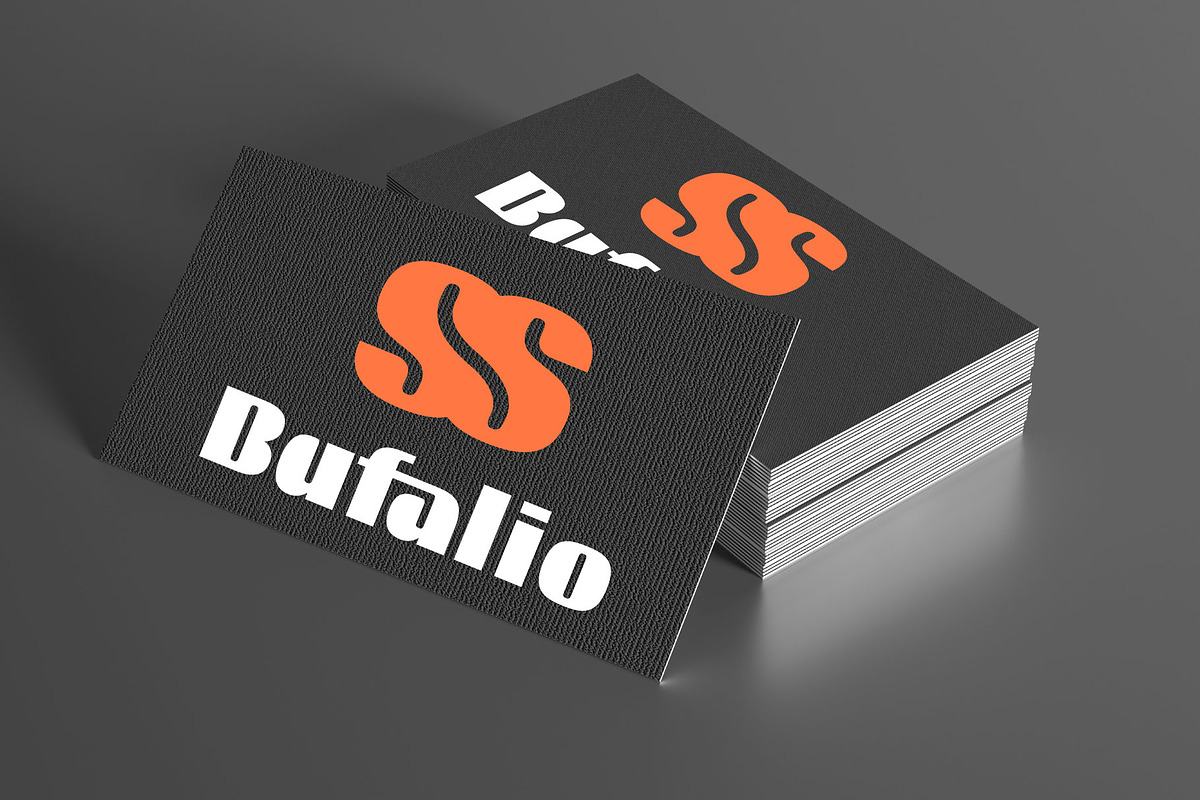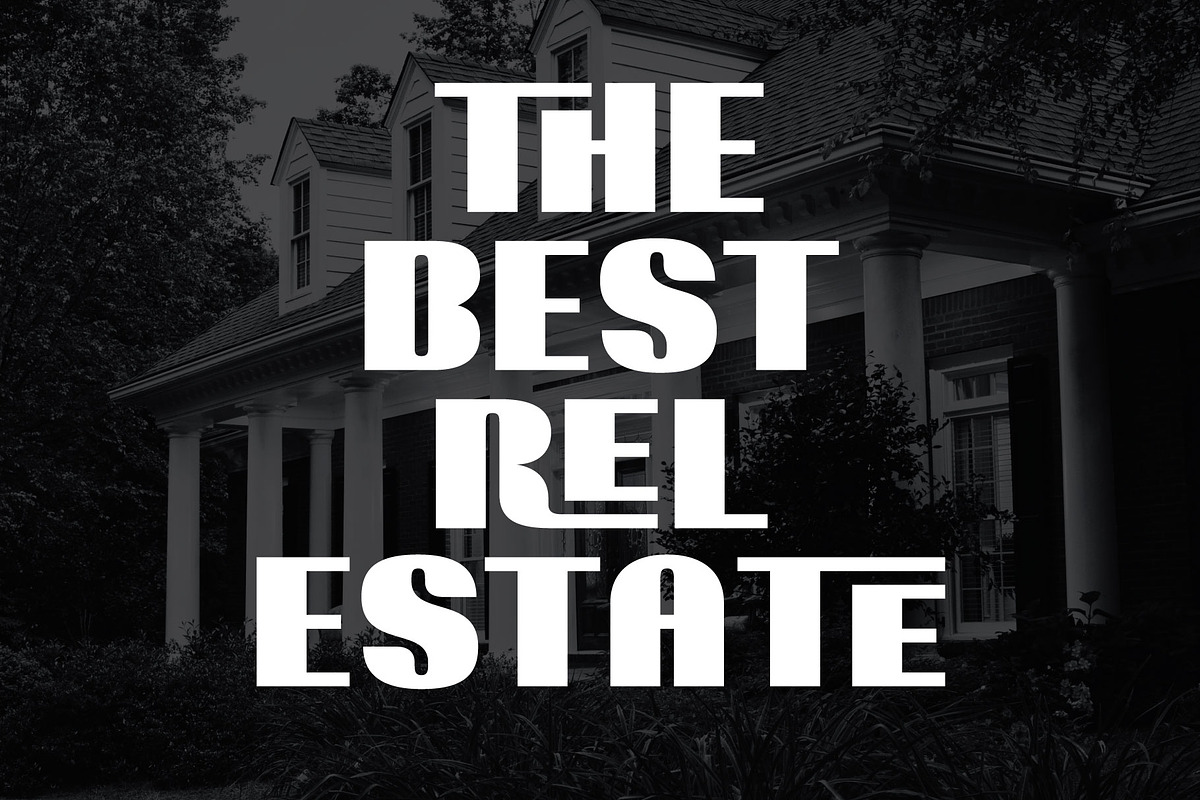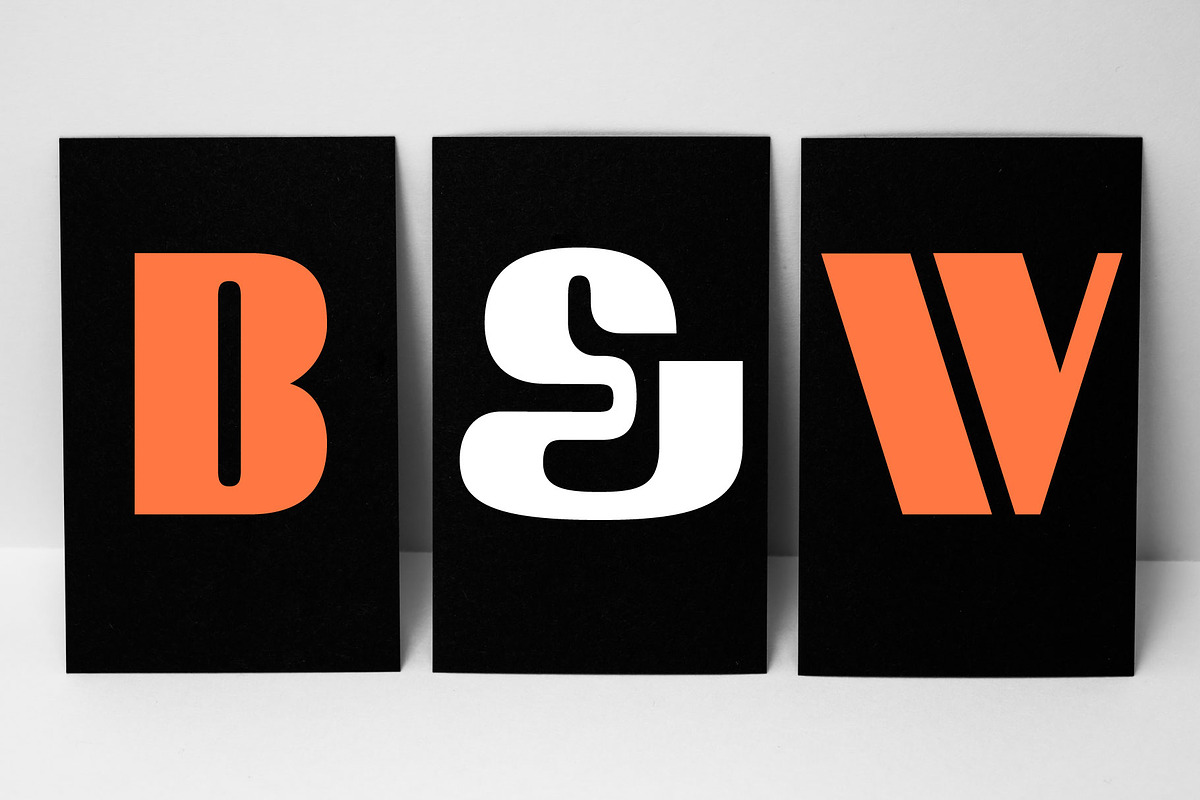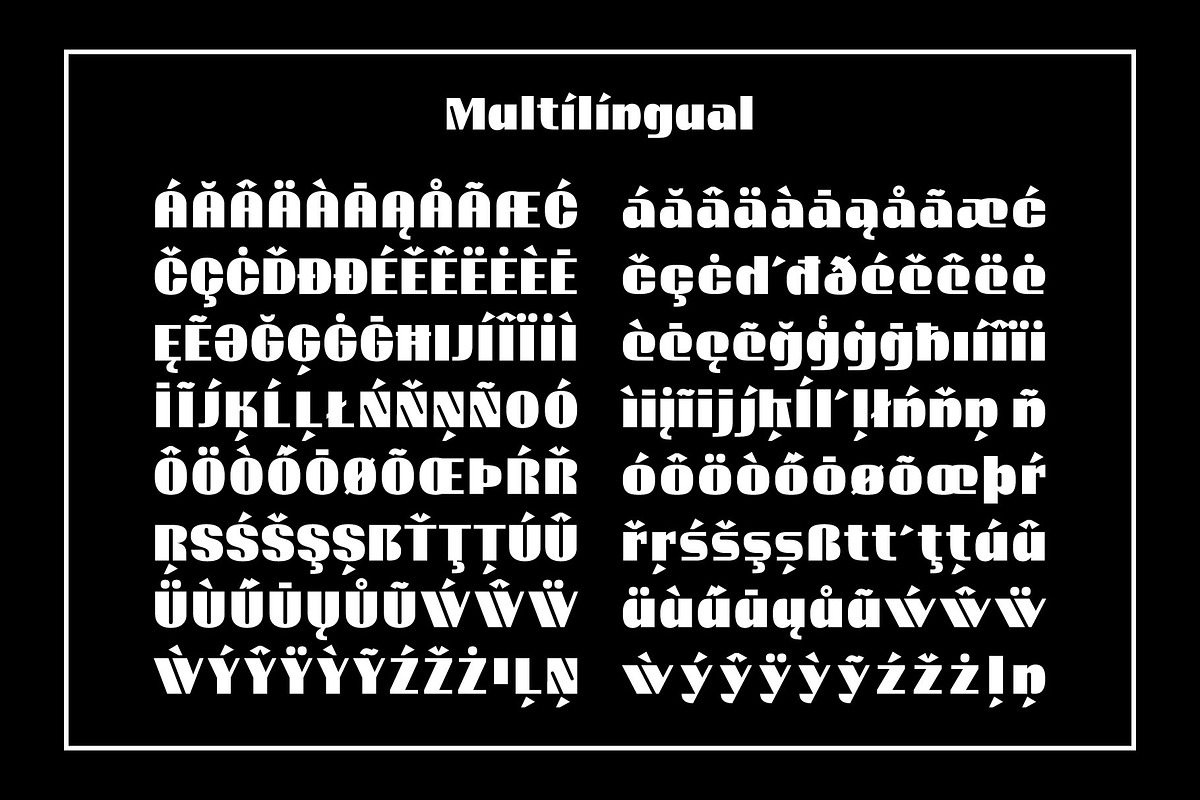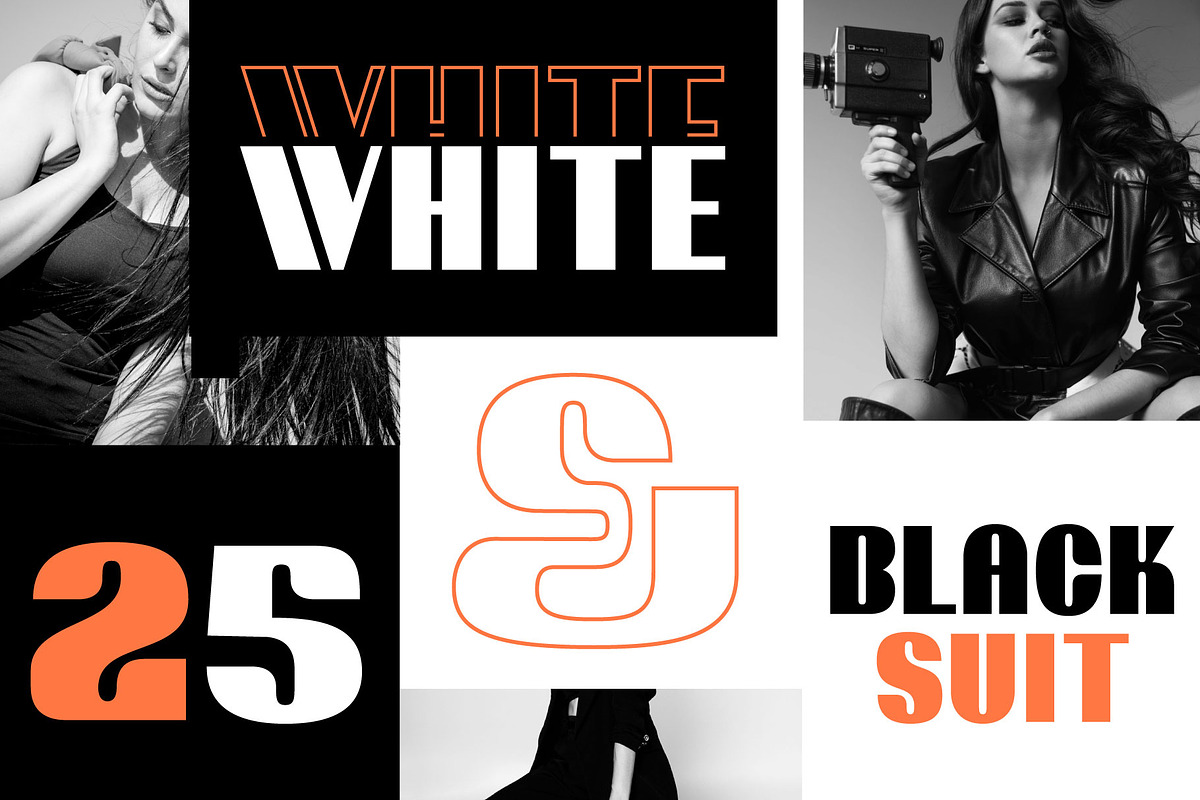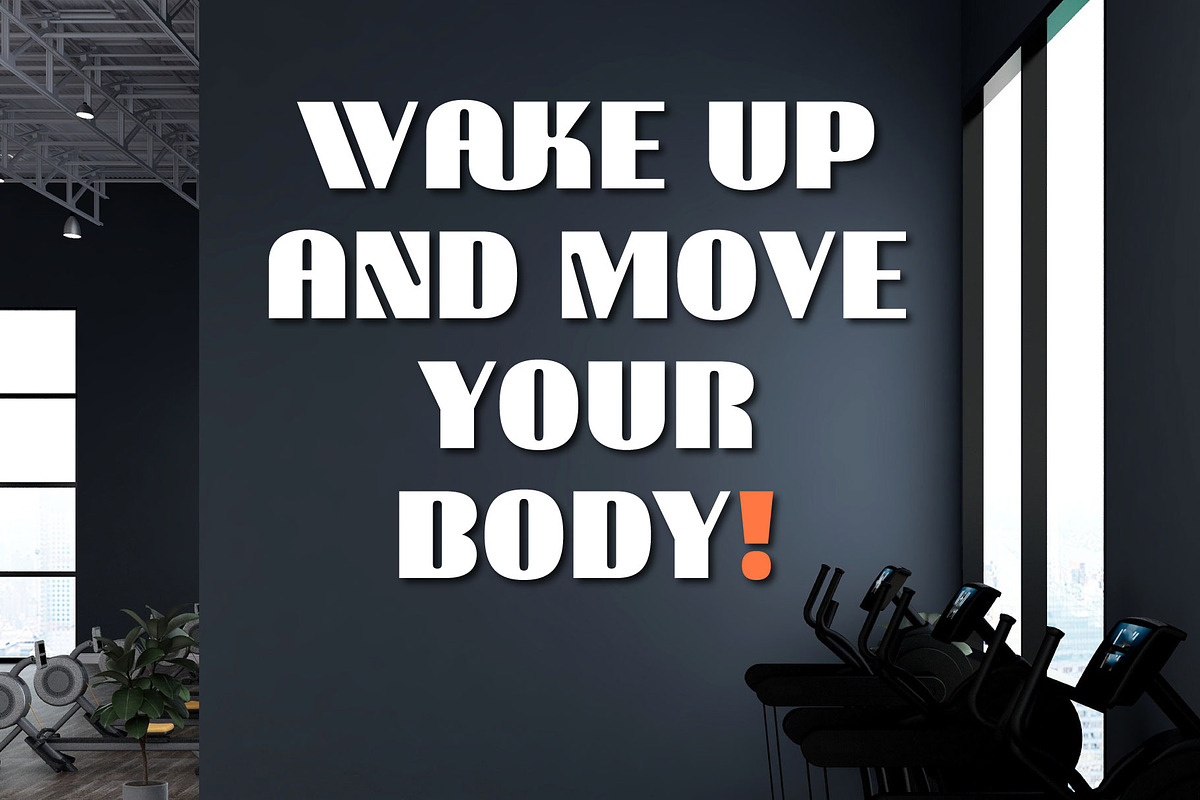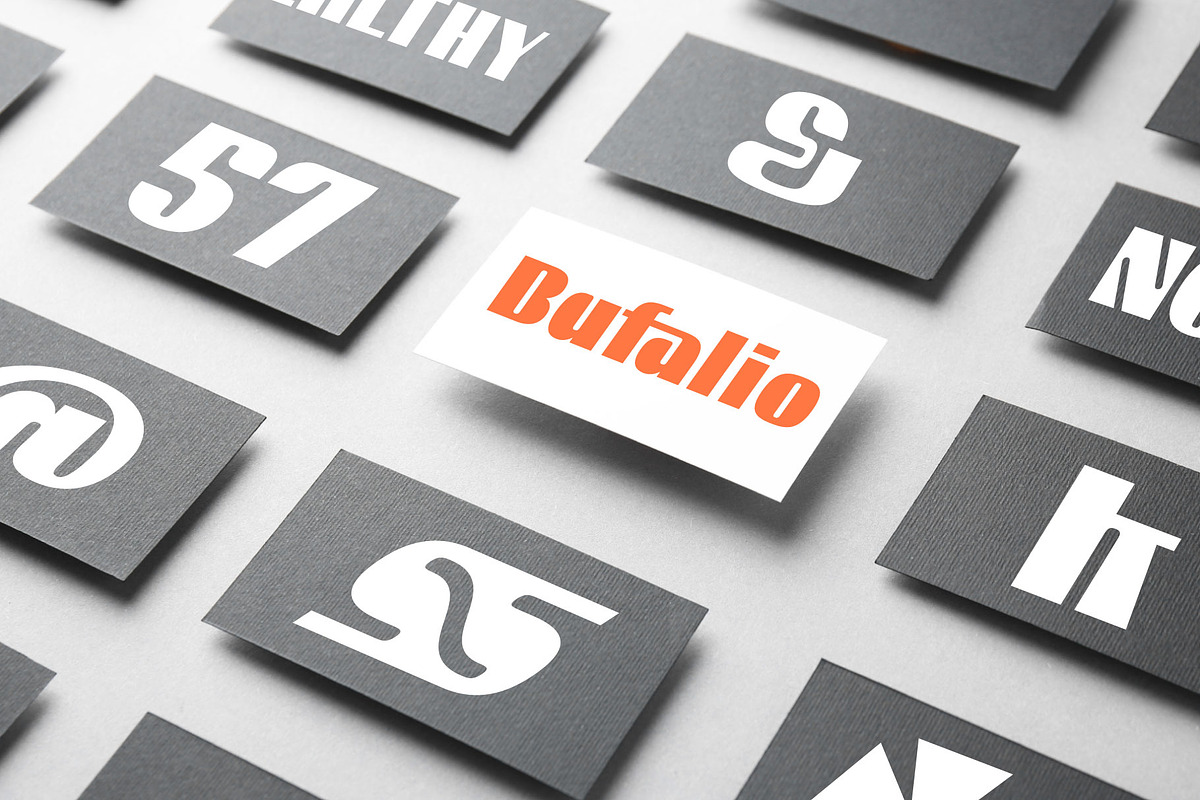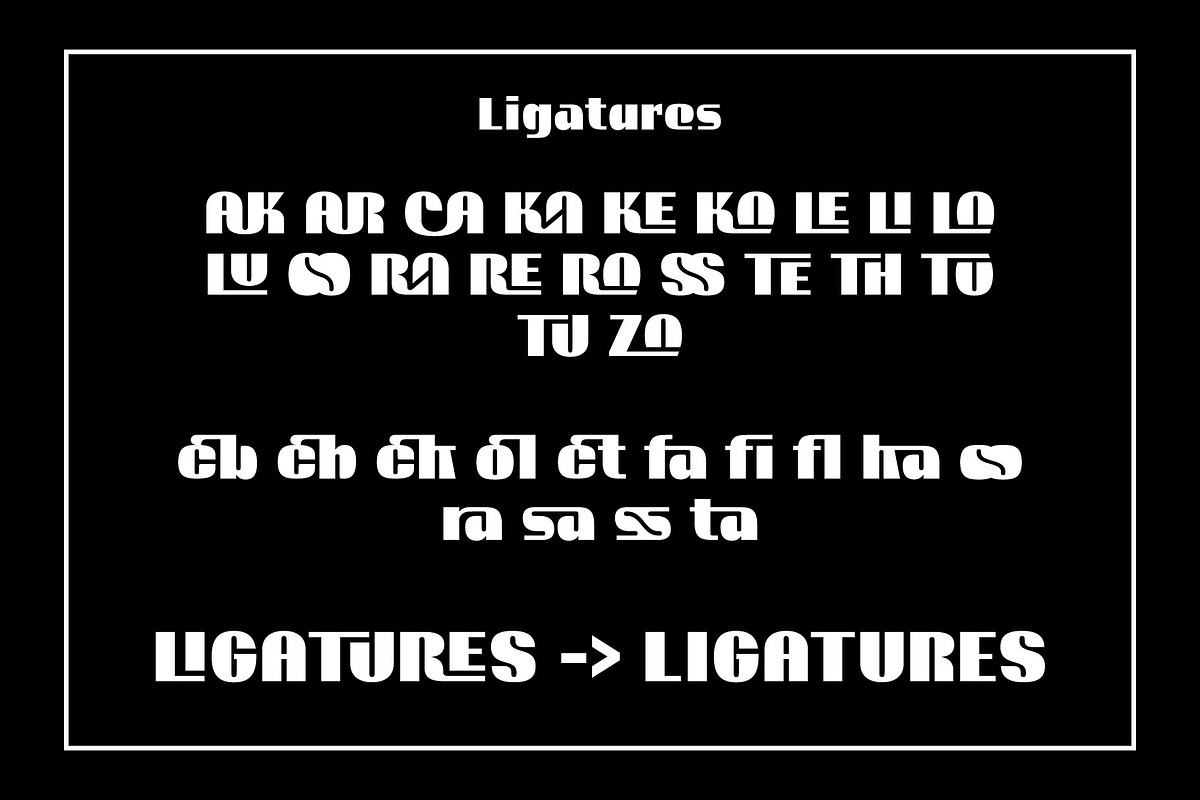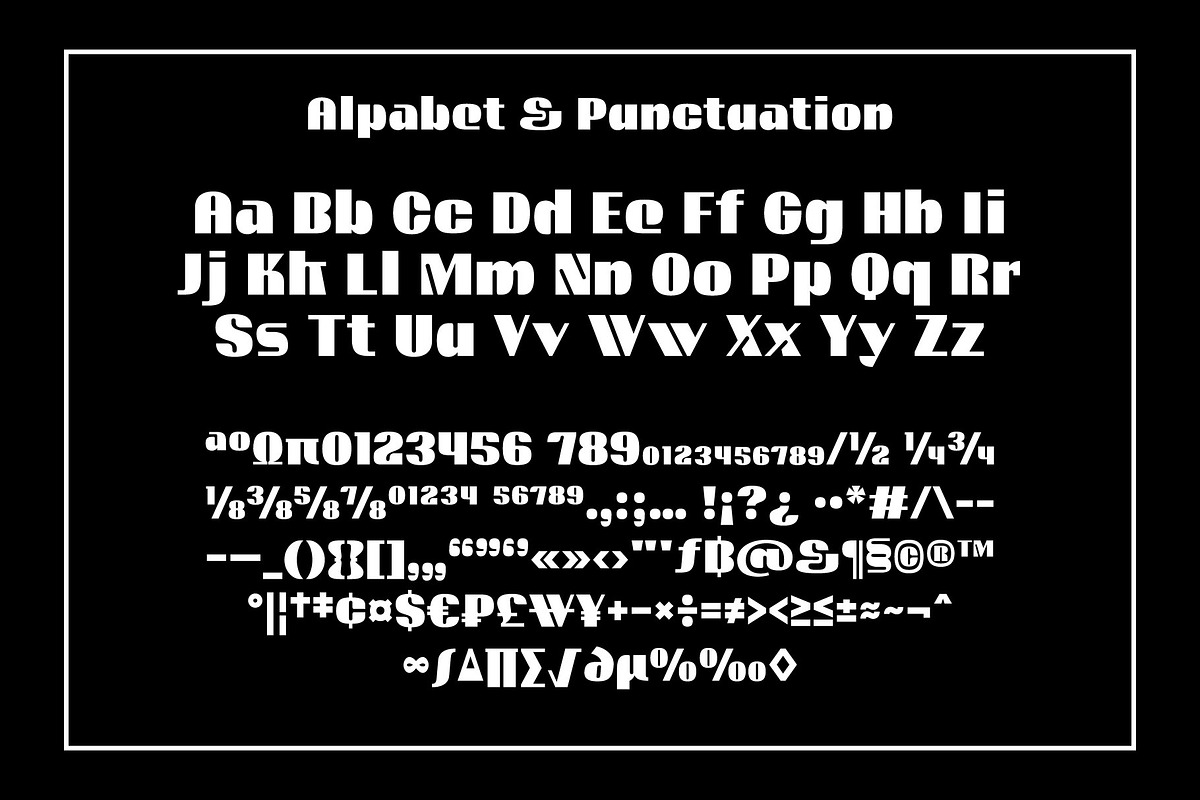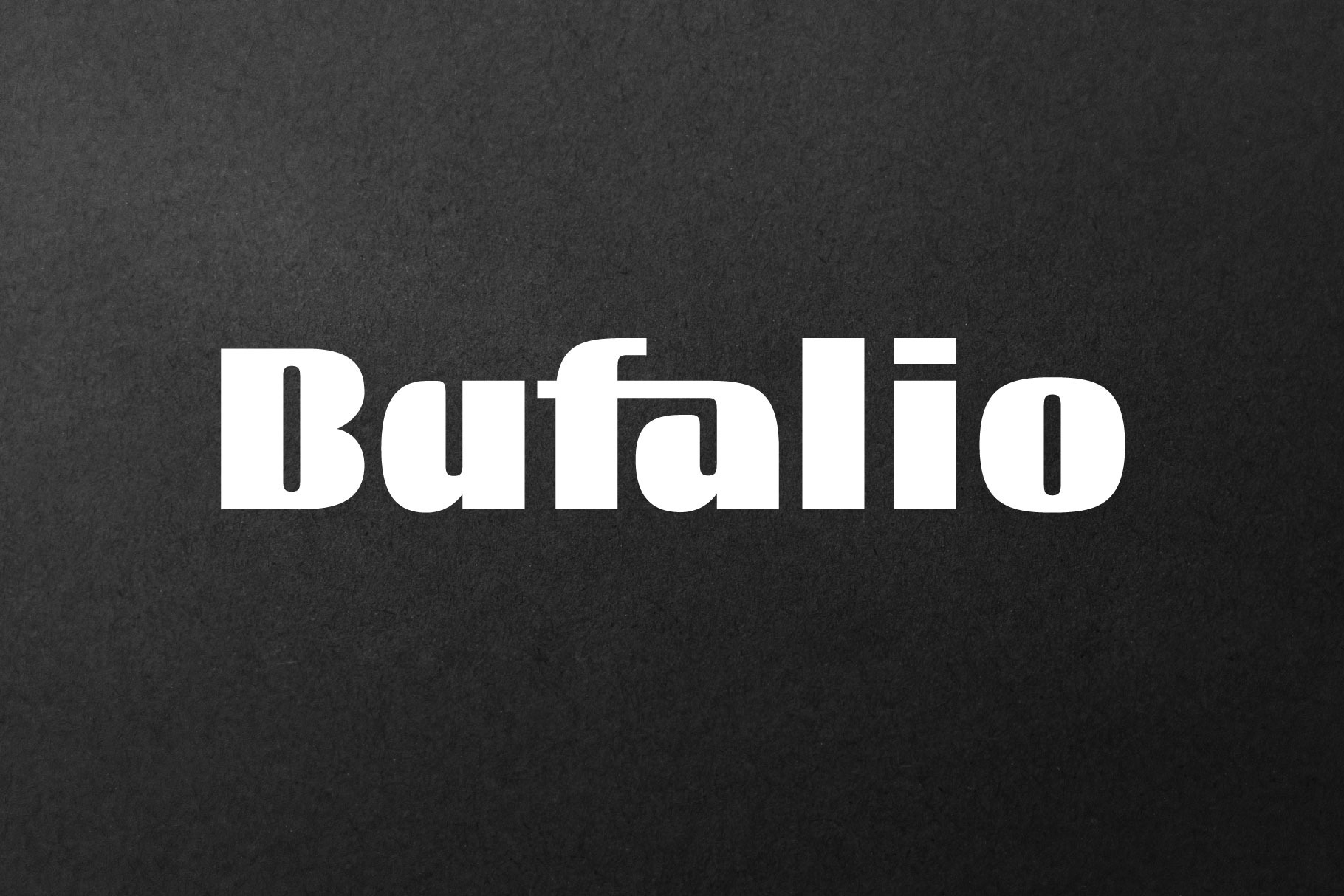
Bufalio Modern Bold Font
Bufalio — a modern bold font created to make your design projects truly stand out. Featuring thick, geometric letterforms with unique cut-out details and a touch of futuristic style, Bufalio combines the best of modern and bold typography in one powerful package. This modern bold typeface is perfect for logos, posters, branding, packaging, headlines, and social media content. Its strong, expressive look instantly elevates your visuals and makes them memorable.
Bufalio also includes creative ligatures for seamless letter connections and extensive multilingual support, allowing you to confidently use accented characters without compromising design quality. And for maximum flexibility, Bufalio comes in OTF, TTF, WOFF, and WOFF2 formats — making it easy to install and use across different systems, software, and websites. With Bufalio, you’re not just downloading a font — you’re unlocking a modern bold creative tool that transforms your typography.
- Modern Bold Style: Thick, geometric, and eye-catching letterforms.
- Creative Ligatures: Smooth connections for more artistic typography.
- Multilingual Support: Covers a wide range of accented characters.
- Versatile Use: Ideal for logos, posters, headlines, branding, packaging, and social media.